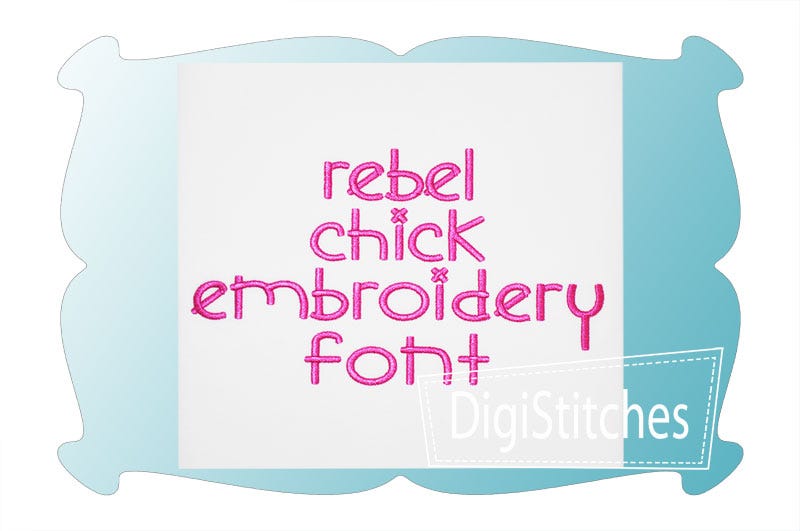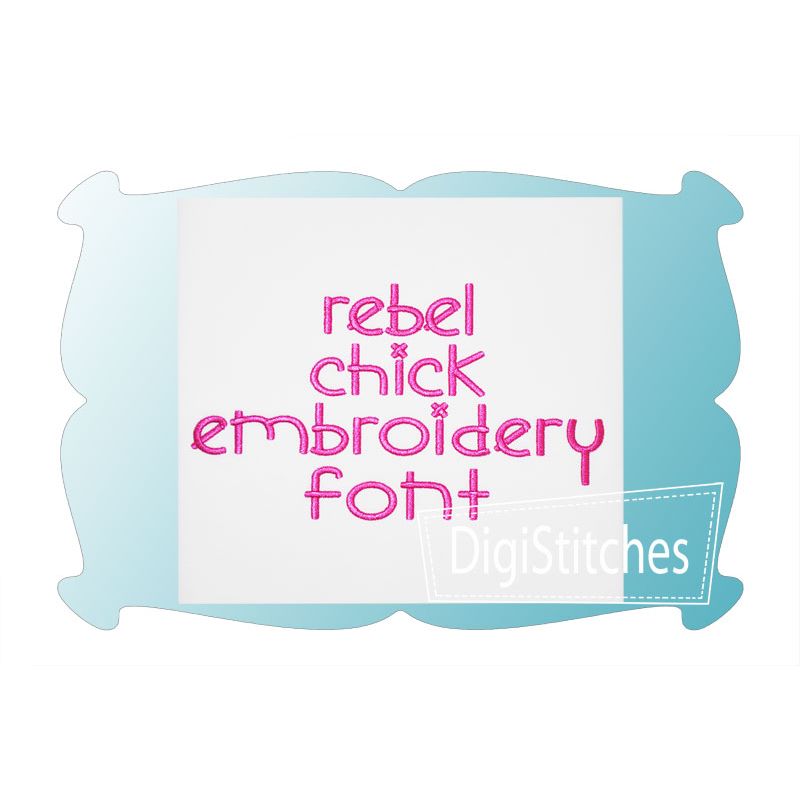
Rebel Chick Satin Stitch Embroidery Font
Rebel Chick Embroidery Font
Rebel Chick embroidery font features super bold letters that really stand out on t-shirts and projects.
This sassy and wonky font offers a fun look and is great choice for both boys (call it Rebel Chuck!) and girls!
Rebel Chick Embroidery Font comes in 5 sizes: .75, 1.00, 1.25, 1.50 and 2.00 inches. Size refers to the height of the letters in the set.
Lower case letters a thru z, numbers 0-9, punctuation as shown.